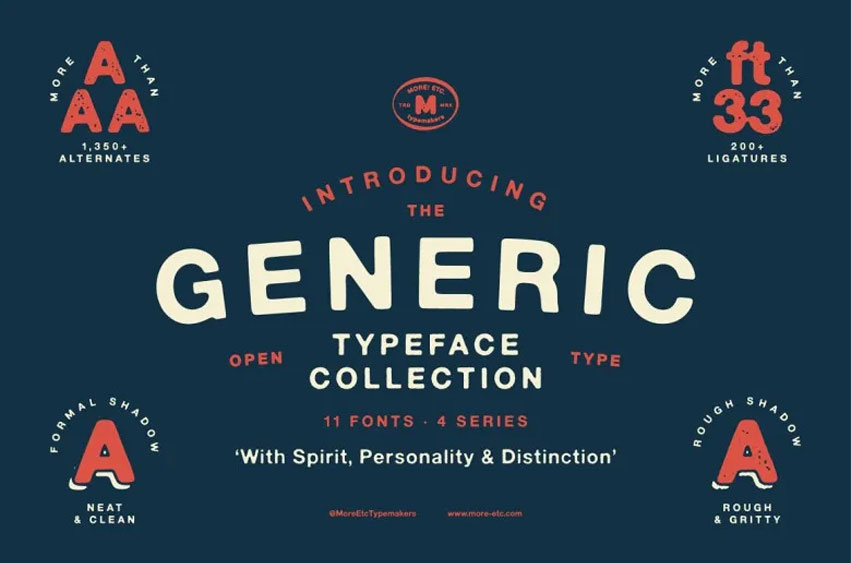
Generic Font
Generic Font Typeface Collection is an exciting array of sans-serif fonts inspired by graphic design, typography and printing from before Adobe, Macintosh computers and desktop publishing came into being; during this era dinosaurs reigned supreme over Earth.
Utilizing various devices for typesetting such as dry transfer typewriters, photo copiers and layouts with shooting and paste-up on film results of printing was not as precise and accurate as they are now.
Viewing old prints makes it hard not to notice how characters from films that were over or underexposed have distinctive looks that we no longer associate with ideality.